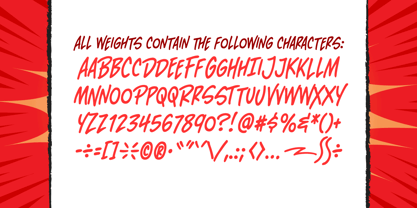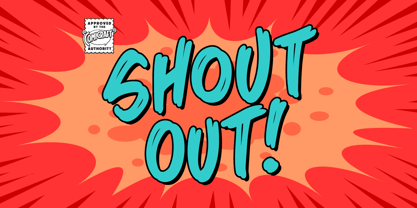
Shout Out Font
This Shout Out Font is perfect for bold advertising campaigns, dynamic promotional materials, energetic event graphics, attention-grabbing headlines, loud announcement designs, vibrant youth marketing, exciting sports promotions, enthusiastic social media content, powerful call-to-action graphics, and high-energy brand communications.
What makes this Shout Out Font exciting is its explosive energy that captures the bold excitement and attention-commanding presence of dynamic announcements. The font features powerful letterforms with vibrant impact that convey enthusiasm, celebration, and unmistakable excitement. Its energetic character and attention-grabbing design make it ideal for brands seeking to communicate loud celebration, dynamic energy, and enthusiastic engagement in high-impact marketing environments.
The Shout Out Font family includes regular, bold, and black weights with dynamic alternates, energetic variants, and explosive flourishes. This comprehensive high-energy font family provides designers with powerful typographic tools to create exciting compositions while maintaining the energetic character essential for promotional campaigns and attention-grabbing brand communications.
Marketing agencies and event organizers consistently choose Shout Out Font Free Download for projects requiring maximum impact and enthusiastic appeal. This font's distinctive energetic character perfectly captures the celebration excitement and dynamic engagement that resonate with audiences who appreciate bold announcements, vibrant energy, and brands that command immediate attention.
The explosive construction of Shout Out Font showcases powerfully designed letterforms with dynamic proportions that ensure maximum impact across all promotional applications. Its attention-grabbing appearance and energetic vitality create memorable impressions while maintaining the readability necessary for effective marketing communication and promotional materials.
Professional designers appreciate how Shout Out Font brings immediate excitement and dynamic energy to brand communications. The font's explosive nature allows organizations to communicate enthusiastic celebration and vibrant engagement while maintaining the professional quality necessary for effective positioning in high-energy marketing and promotional campaigns.
The celebratory appeal of Shout Out Font makes it particularly effective for brands emphasizing dynamic excitement, enthusiastic engagement, and attention-commanding presence. Its energetic character resonates strongly with audiences who appreciate bold celebrations, vibrant announcements, and brands that represent explosive energy and enthusiastic brand personality.
Whether developing campaigns for exciting product launches or creating materials for dynamic entertainment events, Shout Out Font Free Download provides the explosive typographic foundation that high-energy brands need to communicate their enthusiastic celebration, dynamic excitement, and the attention-grabbing impact that defines bold promotional excellence and energetic brand achievement.